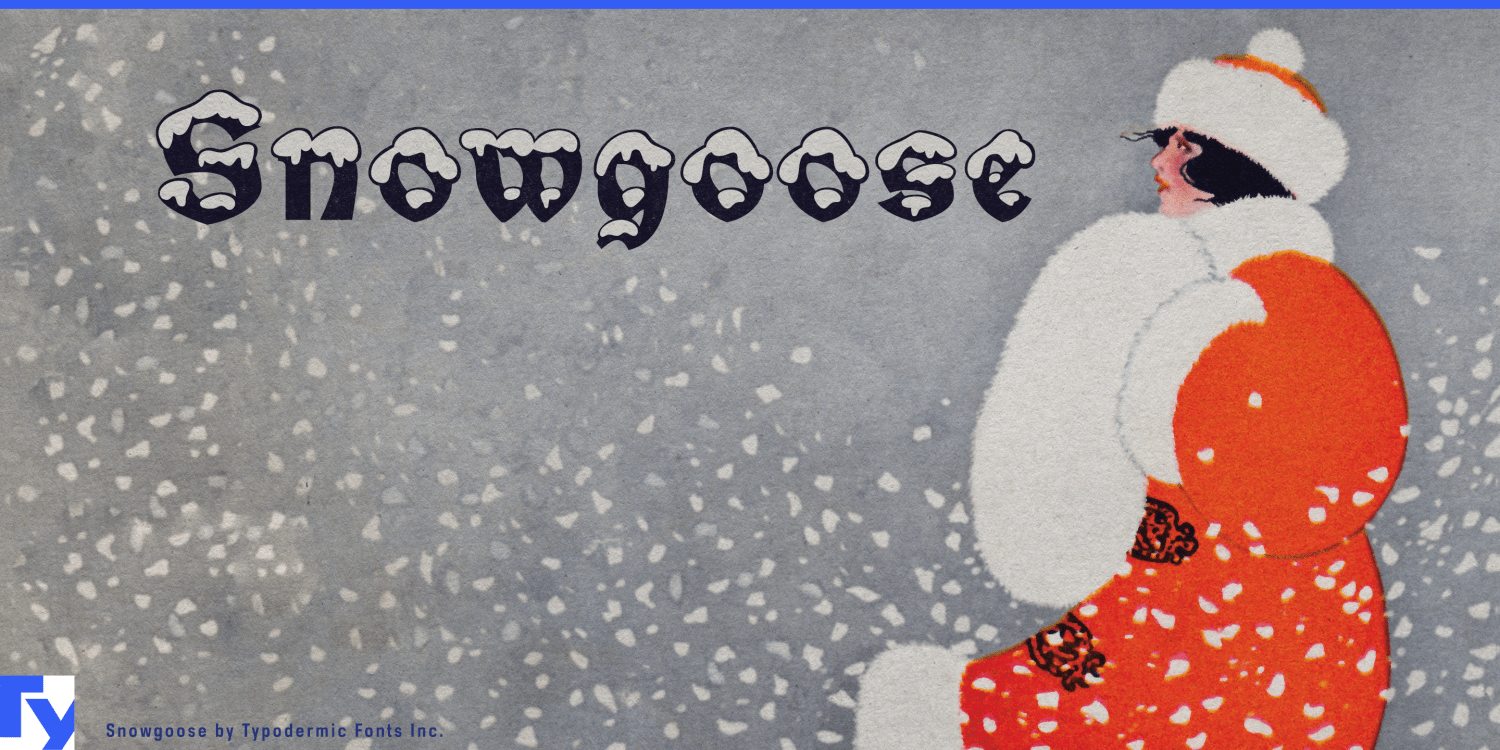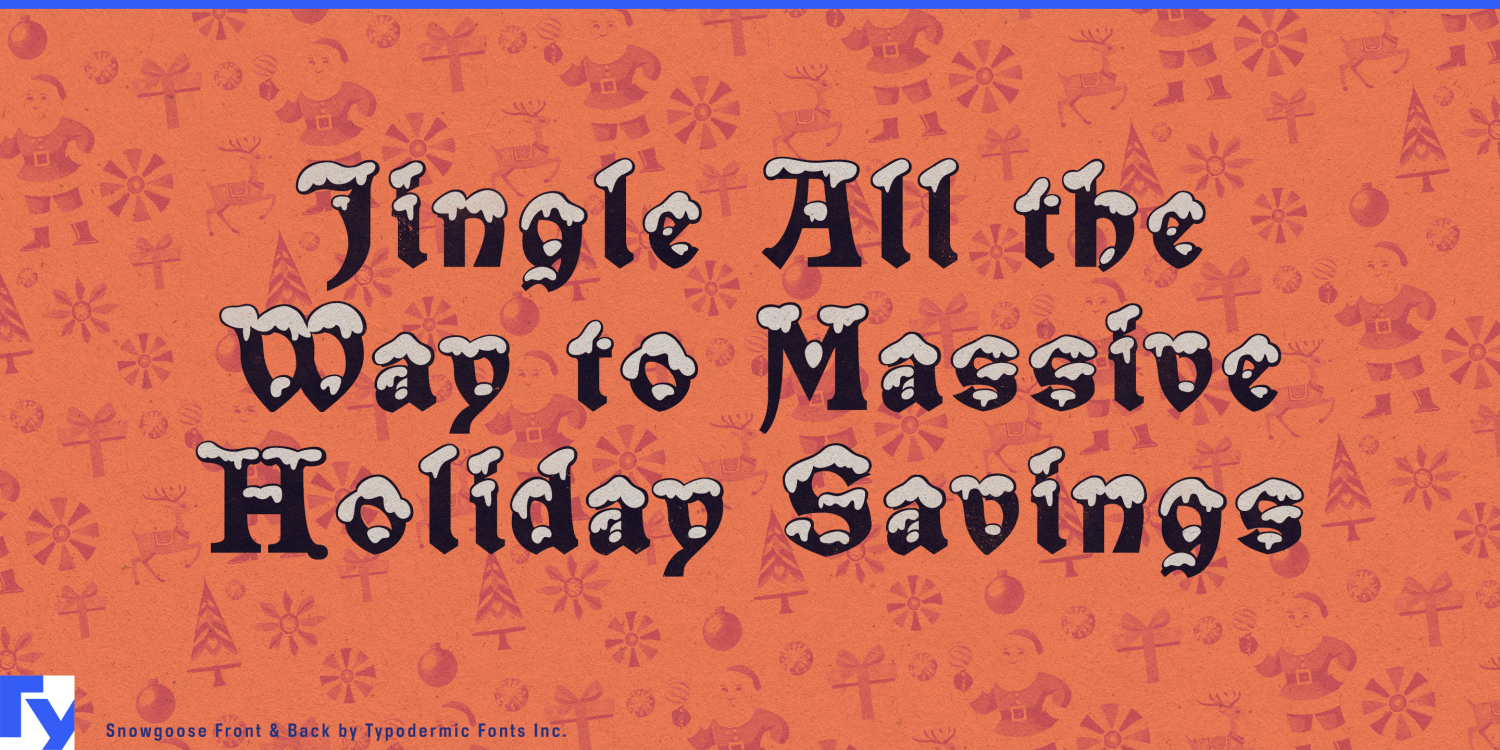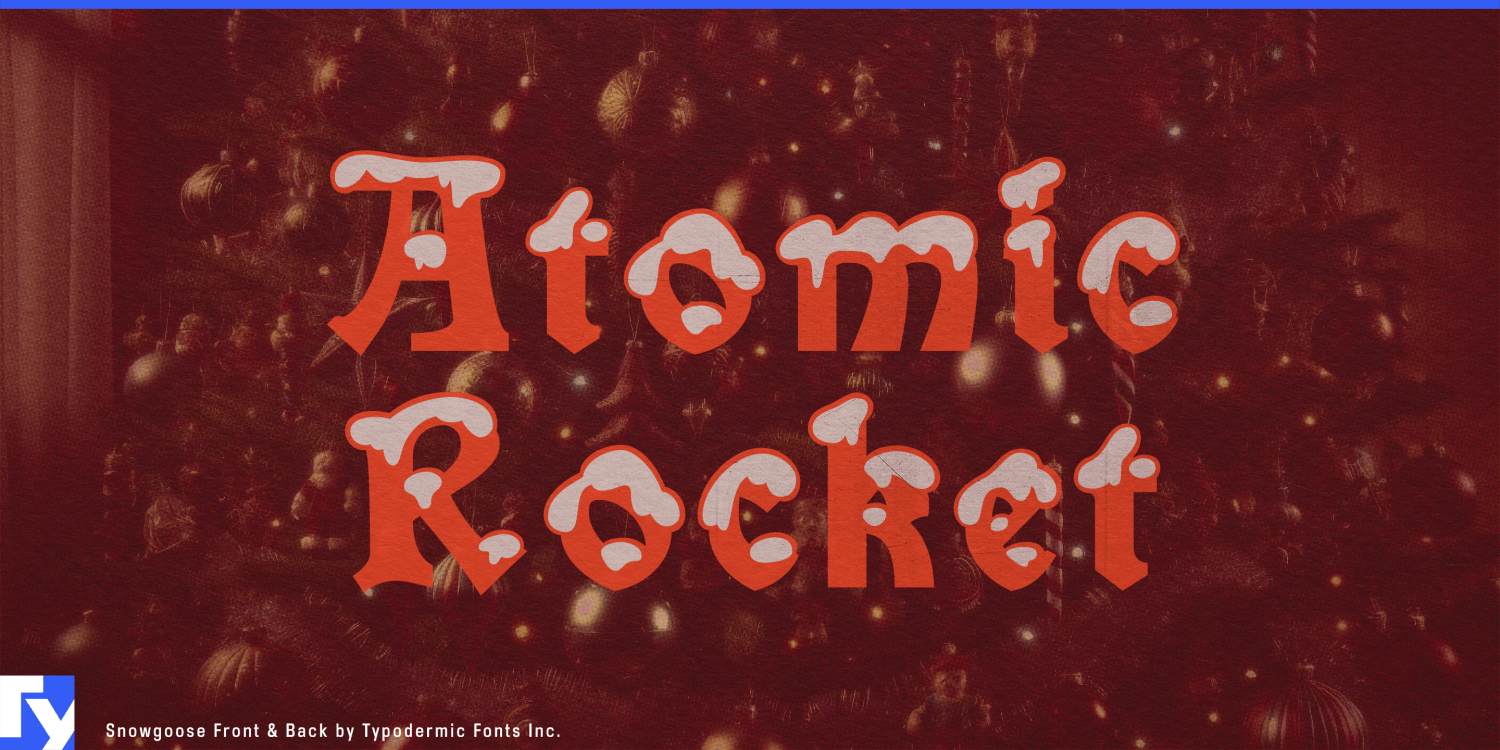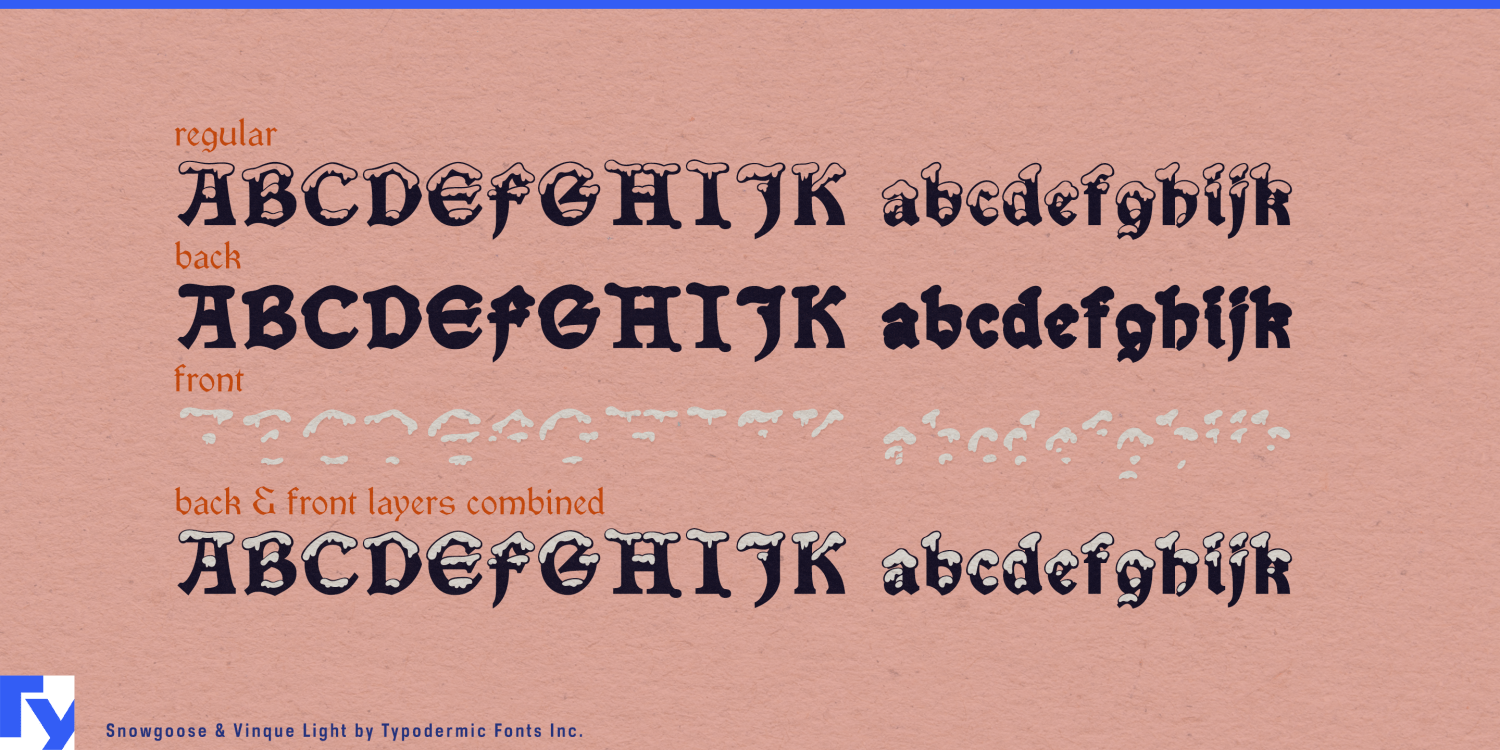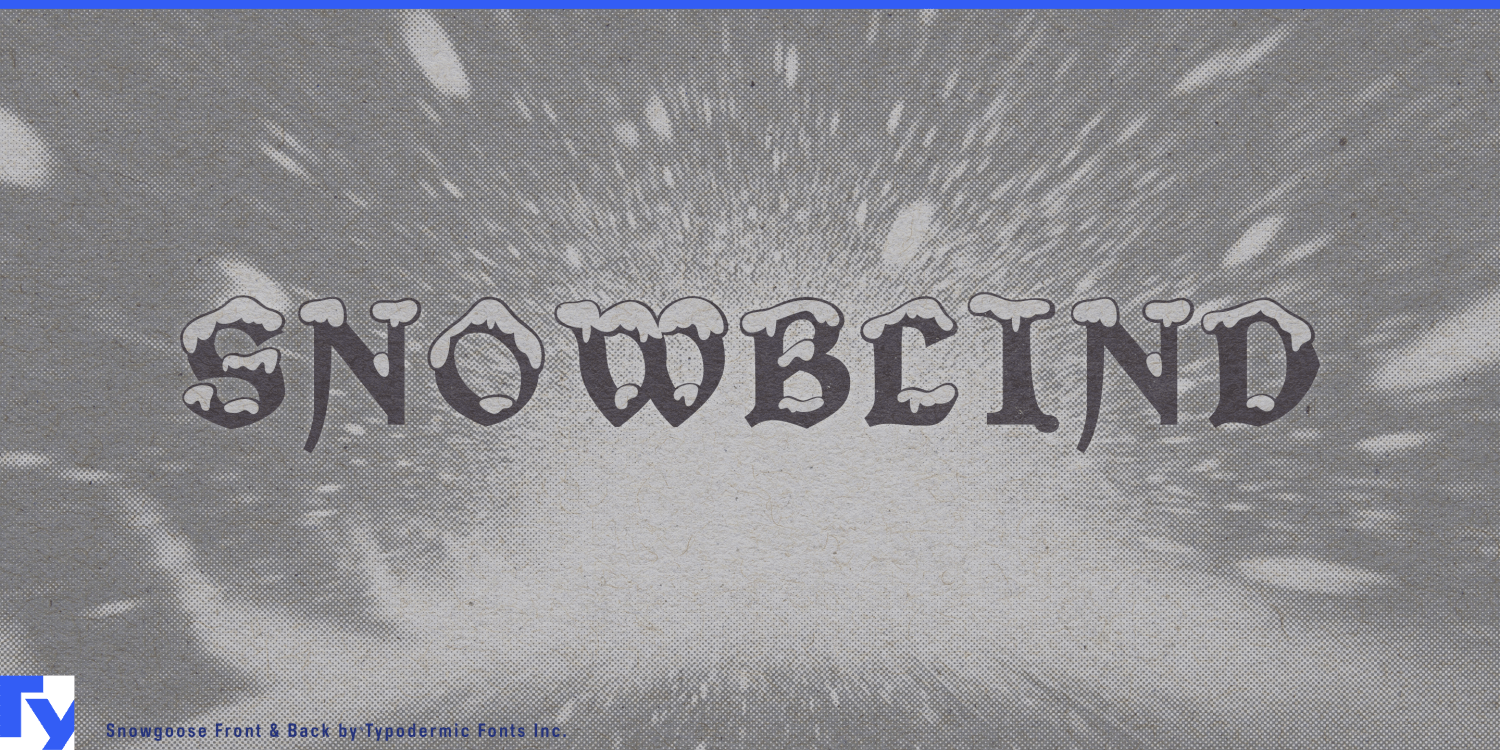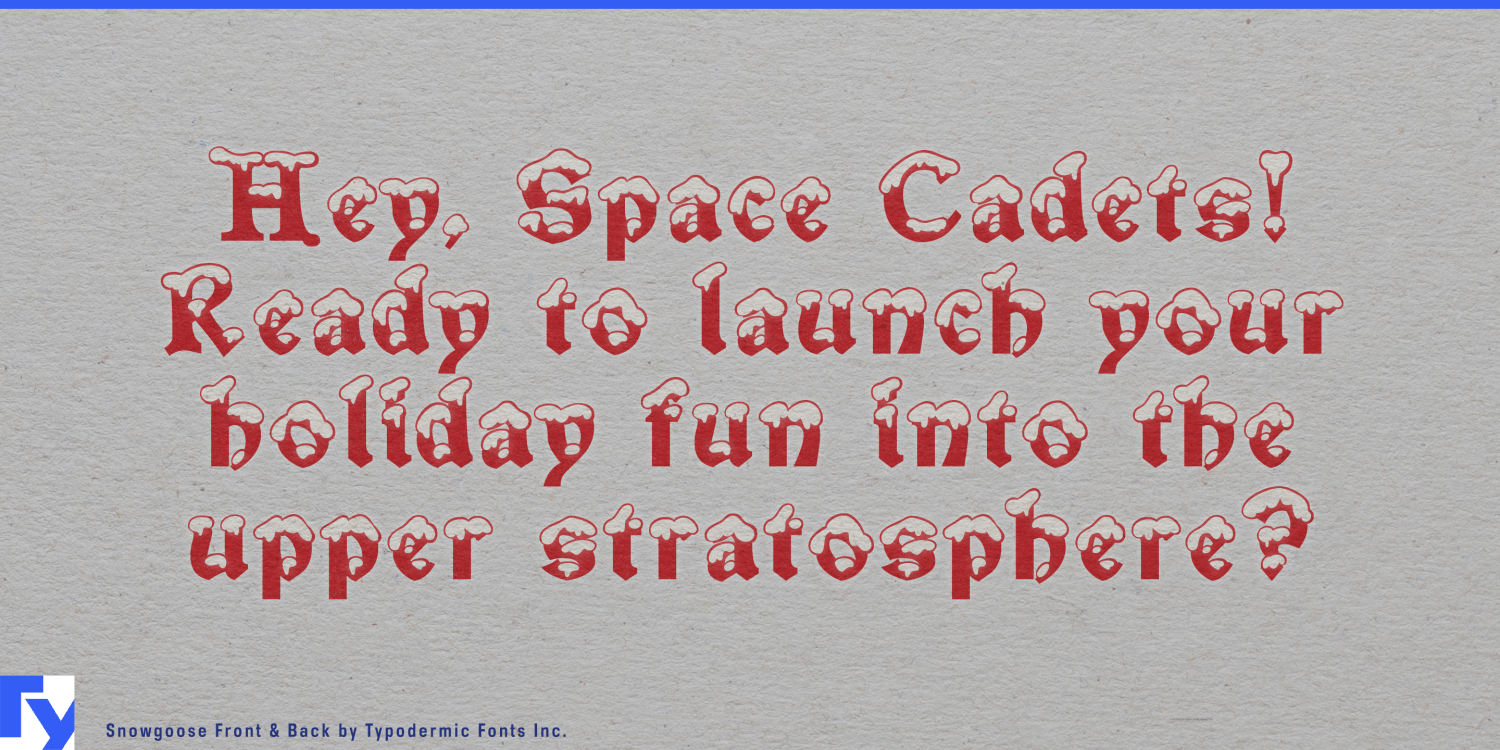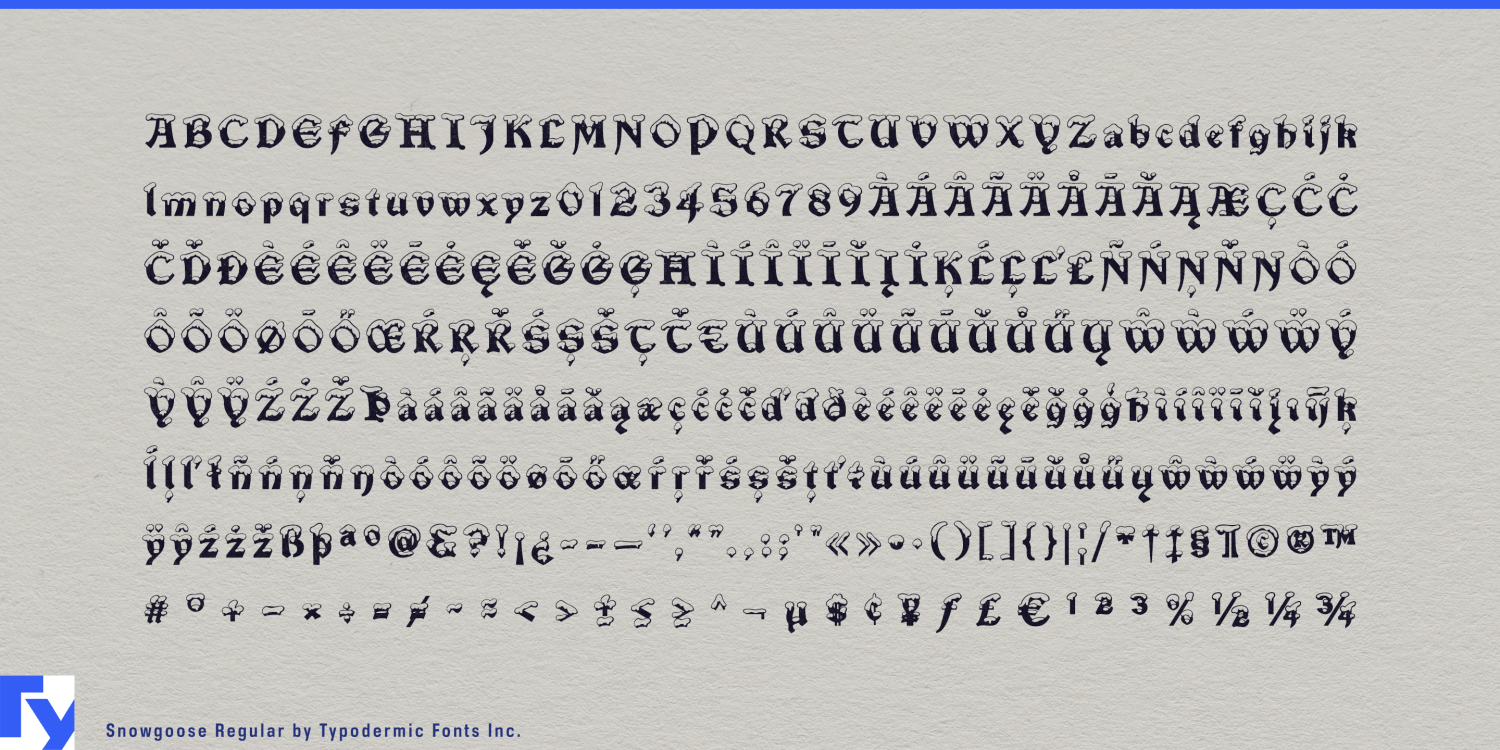
Snowgoose
Some Christmas campaigns need more than a seasonal accent. They need the holiday to register before anyone has finished reading the headline. A custom snow treatment can handle one title, but the work multiplies across changing offers, product ranges, locations, personalized names and animated graphics. Snowgoose turns that exuberantly kitschy effect into a repeatable typographic system.
Regular provides the complete snow-capped treatment. Back isolates the solid blackletter body, while Front contains the snow covering. The separate layers let designers control each component’s color, finish and timing without rebuilding the effect for every phrase. The body can change with a product range while the snow remains consistent; the snow can appear, disappear or move independently while the wording stays in place.
That structure is useful for department stores, supermarket groups, toy retailers and consumer brands building one Christmas identity across window displays, gift guides, aisle signs, digital advertising, packaging, social templates and in-store screens. Snowgoose keeps changing copy recognizably part of the same campaign, even when departments, promotions or product lines use different palettes.
Seasonal confectionery offers an especially natural setting. Advent calendars, biscuit tins, gingerbread kits, chocolate assortments, bakery cartons and hot-chocolate collections benefit from lettering that makes Christmas unmistakable at a glance. Front can suggest snow, icing, sugar or frosting, while Back follows the color of each flavor or package. The components can also separate white ink, metallic ink, glitter, raised varnish or another finish from the main lettering.
Personalized ornaments, stockings, gift sacks, labels and confectionery boxes create a more demanding version of the same problem: every order may contain different text. Snowgoose gives changing names a consistent illustrated treatment without asking a lettering artist to draw fresh snow each time.
For television packages, streaming promotions and live entertainment, the layers provide distinct elements for motion. Snow can settle onto the title after the body appears, reveal separately or shift between flat and dimensional treatments. In Christmas villages, illuminated trails, department-store Santa experiences and seasonal railway events, Back and Front can become separate vinyl colors, stacked acrylic pieces, illuminated elements or projected overlays.
Snowgoose makes no attempt to turn Christmas into restrained winter minimalism. Its blackletter body and heavy snow caps belong to glowing shop windows, television specials, overflowing gift displays and theatrical family attractions. The separate snow layer turns that deliberate kitsch from a single novelty headline into a flexible system for campaigns with plenty of changing copy.